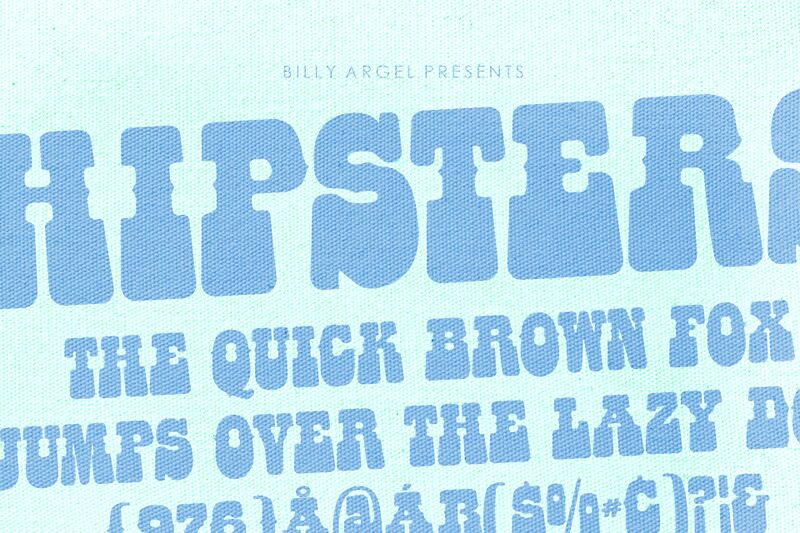
Hipsters Rounded is an extra-bold, condensed display font designed by Billy Argel Fonts with a western style. Its retro-inspired rounded edges give it a playful, yet rugged feel that makes it ideal for a variety of creative projects. Whether you're designing a vintage-style poster or creating branding for a trendy coffee shop, Hipsters Rounded is the perfect choice to make your message stand out. This unique font is suitable for various projects such as logo design, packaging design, social media graphics and posters. Elevate your designs with the bold and daring character of Hipsters Rounded.
Two fonts bold and bold rounded.